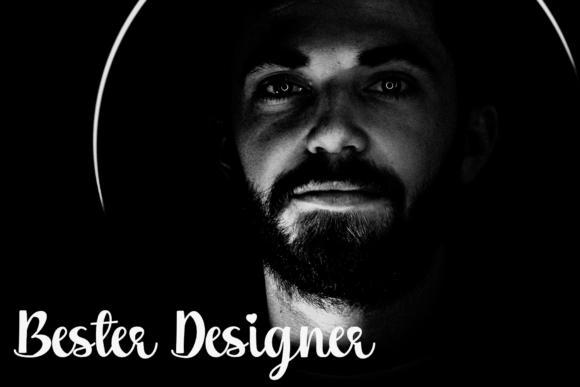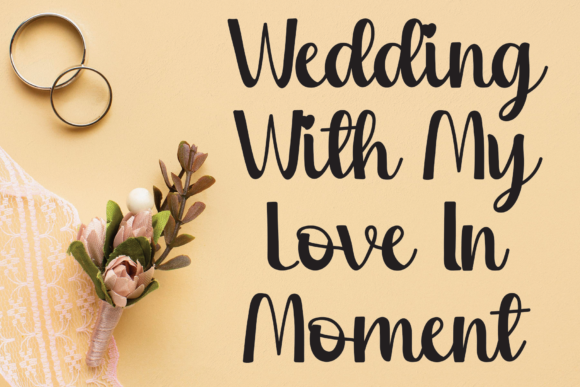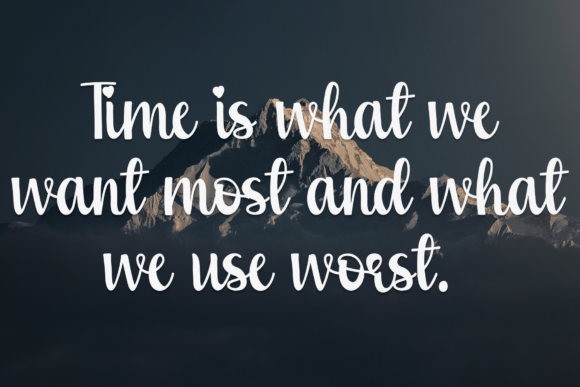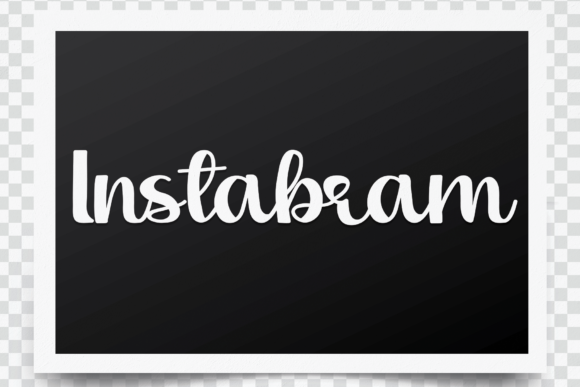
The Comfort Font: A Sweet Handwritten Delight for Designers and Crafters
I’ll never forget the time I was working on a branding project for a boutique client, and I was struggling to find the perfect font to capture their elegant and whimsical vibe. That’s when I stumbled upon the Comfort font, a sweet handwritten font that instantly became my go-to. In this article, I’ll share my love for Comfort, its features, and how to make the most of it in various design platforms.
An Honest Review of Comfort Font
What I Love About Comfort Font
- ✨ Elegant and dainty handwritten style with sweet swashes
- ✅ Perfect for crafty ideas, such as letterheads, titles, and stationery
- 💕 Highly versatile and can be used for both digital and print projects
- 🎨 Features a wide range of OpenType features, glyphs, and stylistic alternates
While Comfort font is an excellent choice, there are a few things to keep in mind:
- ⚠️ Some swashes might not work well in smaller font sizes
- 🤔 Limited kerning options, which can affect text flow
The Backstory of Comfort Font
Comfort font was designed with the intention of creating a sweet and delicate handwritten font that would evoke feelings of warmth and coziness. The designer aimed to craft a font that would be perfect for a wide range of creative projects, from stationery to branding. With its elegant swashes and versatile style, Comfort font has become a favorite among designers and crafters alike.
| What is Comfort font best used for? | Comfort font is ideal for crafty ideas, such as letterheads, titles, stationery, and branding projects that require an elegant and whimsical touch. |
| Is Comfort font suitable for body text? | While Comfort font can be used for body text, it’s recommended to use it in larger font sizes (above 14pt) to ensure optimal readability. |
| Does Comfort font come with OpenType features? | Yes, Comfort font features a range of OpenType features, including swashes, glyphs, and stylistic alternates, which can be accessed in compatible design software. |